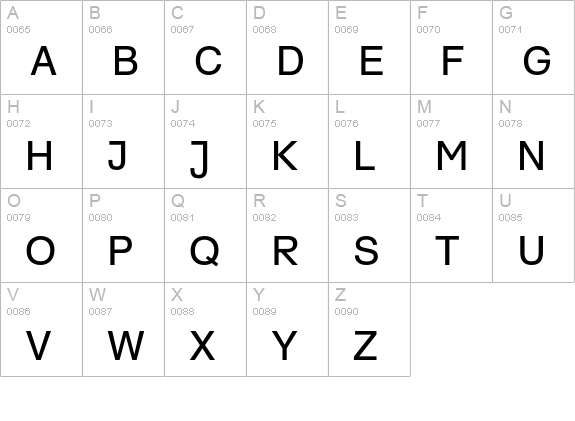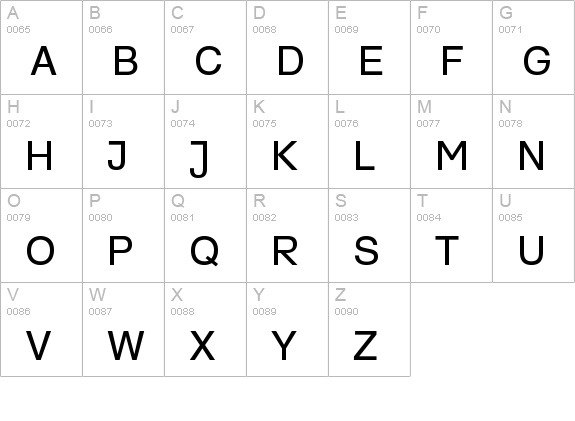
SchulbuchSued-Normal Font Details
SchulbuchSued-Normal is the standard, neutral variant in the SchulbuchSued typeface family \xE2\x80\x94 well suited to general body text, paragraphs, and standard typographic work.
SchulbuchSued-Normal font is a beautifully crafted typeface that exudes elegance and professionalism. Its clean and legible design makes it perfect for various design projects, including textbooks, educational materials, and corporate branding. The font's smooth curves and balanced letterforms ensure readability at any size, making it suitable for both print and digital applications. One of the best things about SchulbuchSued-Normal font is that it is completely free to use. Whether you're a student, teacher, or designer, you can freely download this font at FontsMarket.com. This means that you can enhance your projects with a high-quality typeface without having to worry about any licensing restrictions or fees. With SchulbuchSued-Normal font, you have the freedom to bring your creative visions to life. Its versatility allows you to experiment with different layouts, styles, and color schemes to achieve the desired effect. Whether you're creating educational materials that need to be engaging and accessible or designing a professional logo that needs to make a lasting impression, this font has got you covered. Furthermore, SchulbuchSued-Normal font offers extensive language support, ensuring that you can use it in multilingual projects with ease. Its comprehensive character set includes various punctuation marks, numerals, and special symbols, making it a versatile choice for any design project. In conclusion, SchulbuchSued-Normal font is a remarkable typeface that combines elegance, readability, and versatility. With its free availability on FontsMarket.com, you can easily download and incorporate this font into your projects without any hassle. So go ahead, unleash your creativity, and elevate your designs with the timeless beauty of SchulbuchSued-Normal font.